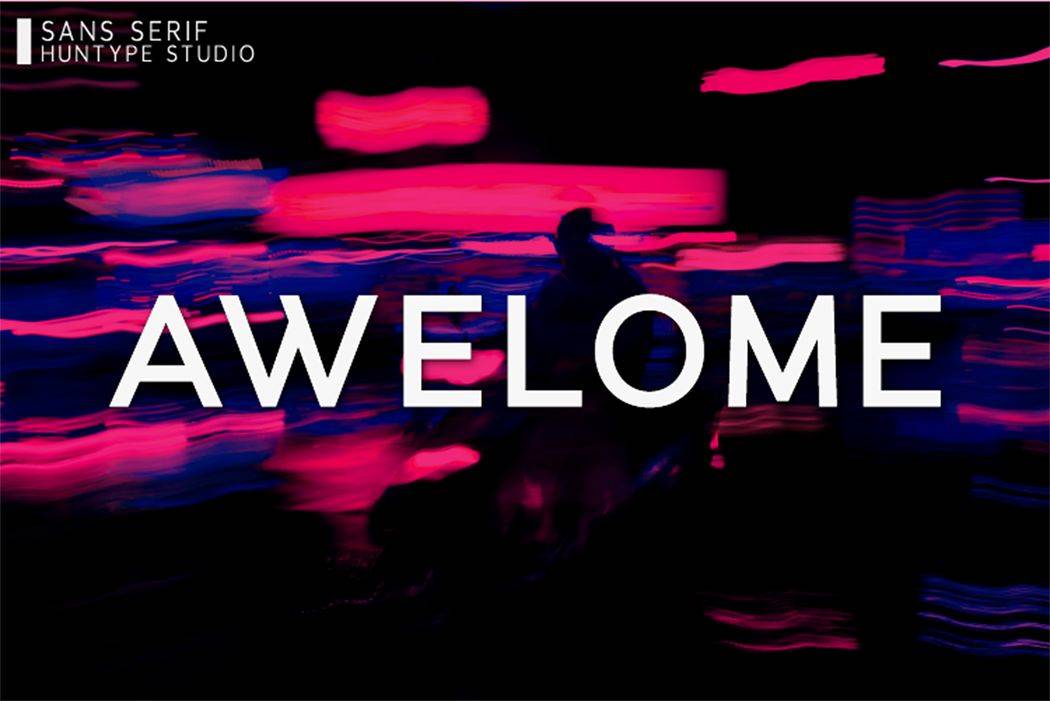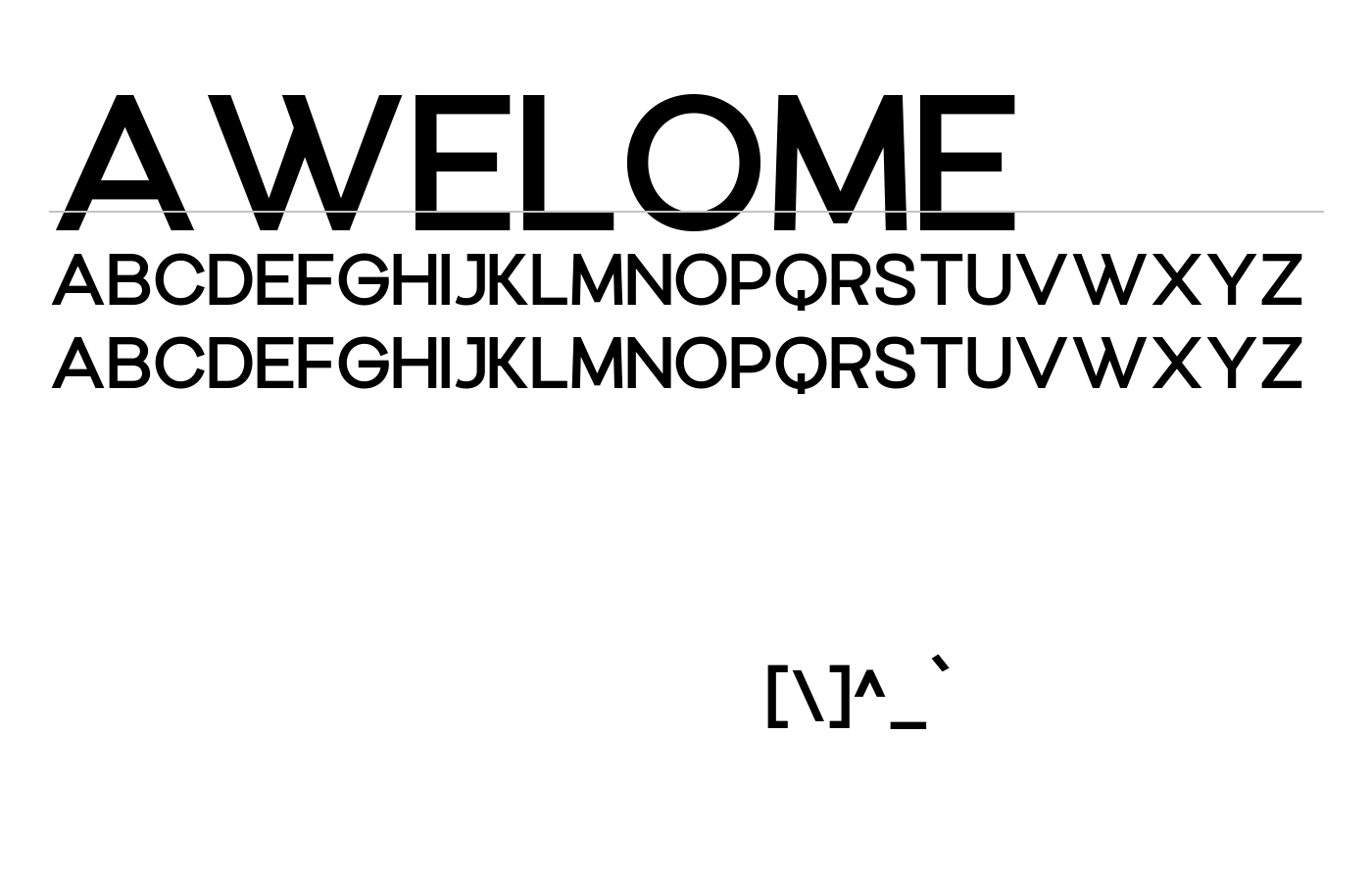
Awelome Font is a clean, modern sans serif typeface with a balanced weight and a slightly condensed width that gives it a sleek and professional look. Its geometric letterforms and uniform stroke contrast make it highly legible, perfect for contemporary branding, headlines, and editorial use where clarity and style are essential. This font is ideal for businesses and projects aiming for a minimalist yet confident design aesthetic.
Awelome Font
About Awelome Font